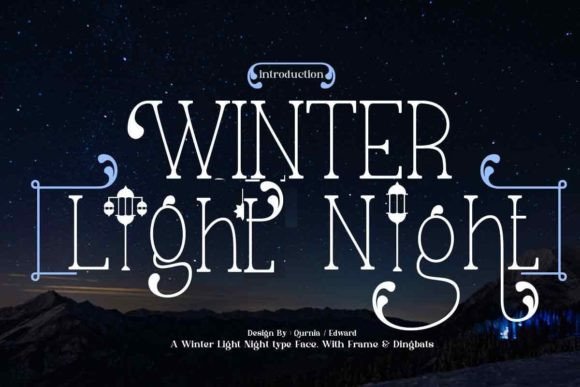
Welcome to the world of Winter Light Night, an exquisite display font that will ignite your creative vision with its enchanting glow. Imagine your designs adorned with characters that dance and shimmer, captivating your audience with their undeniable charm.
Winter Light Night is far more than just a collection of letters; it's an artistic masterpiece that empowers you to express your uniqueness and leave a lasting impression. Whether you're crafting whimsical invitations, captivating posters, or unforgettable branding, this font will effortlessly elevate your creations to new heights.
With its PUA encoding, Winter Light Night grants you seamless access to a treasure trove of glyphs and ligatures. Unleash your imagination and explore endless possibilities, transforming ordinary text into extraordinary works of art.
Immerse yourself in the enchanting world of Winter Light Night and witness the transformative power of typography. Let its elegant curves and intricate details cast a spell on your designs, captivating hearts and igniting imaginations. Embrace the magic of Winter Light Night today and illuminate your creative path with its enchanting glow!